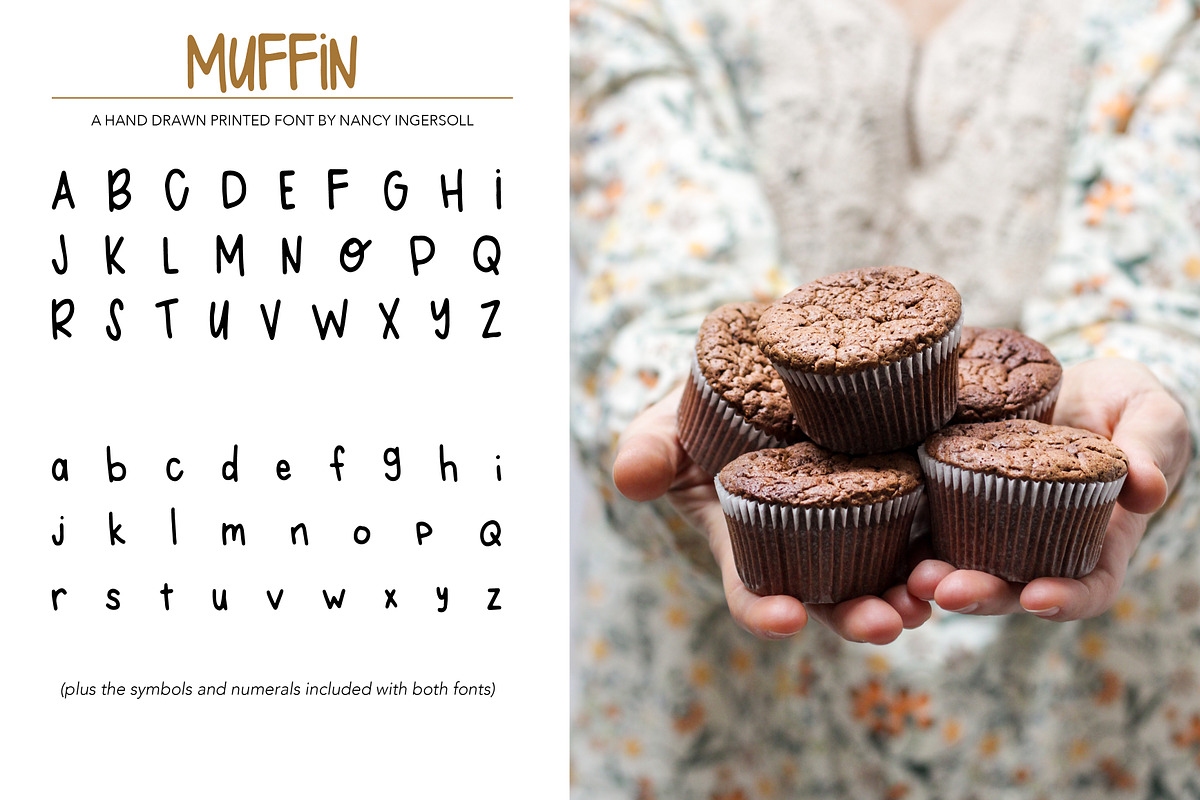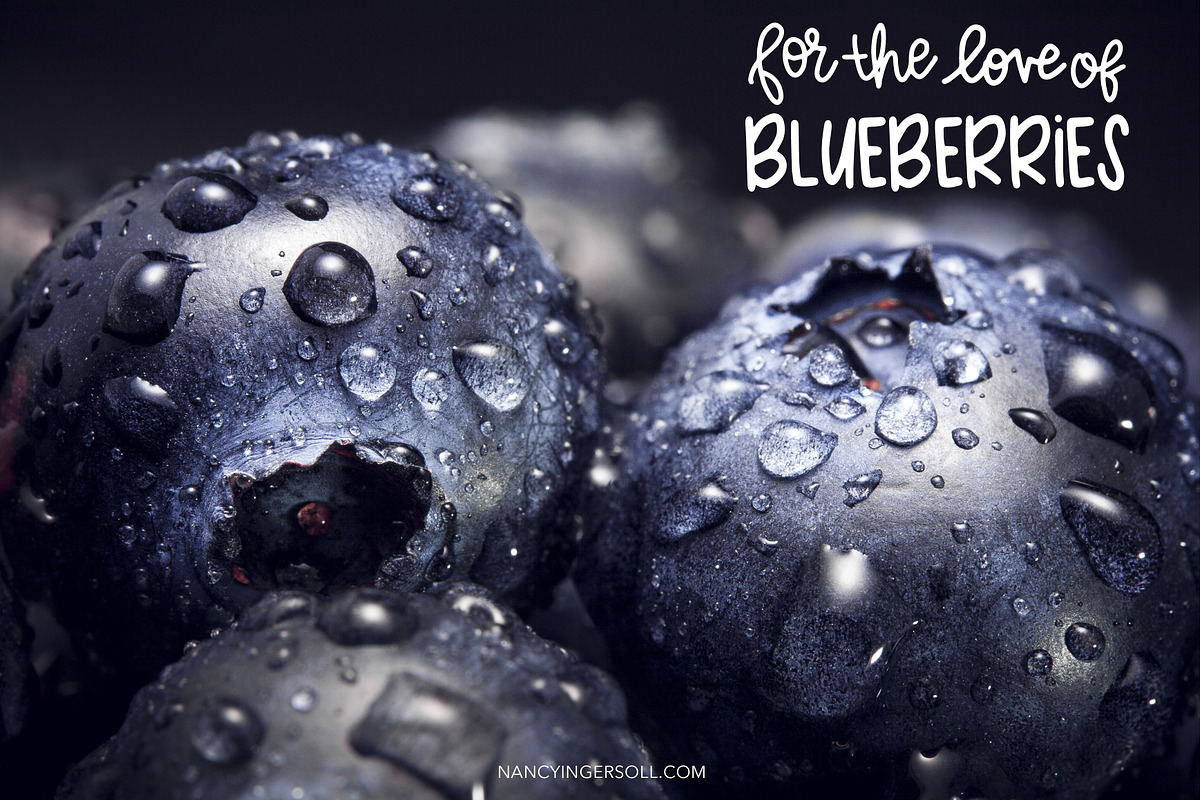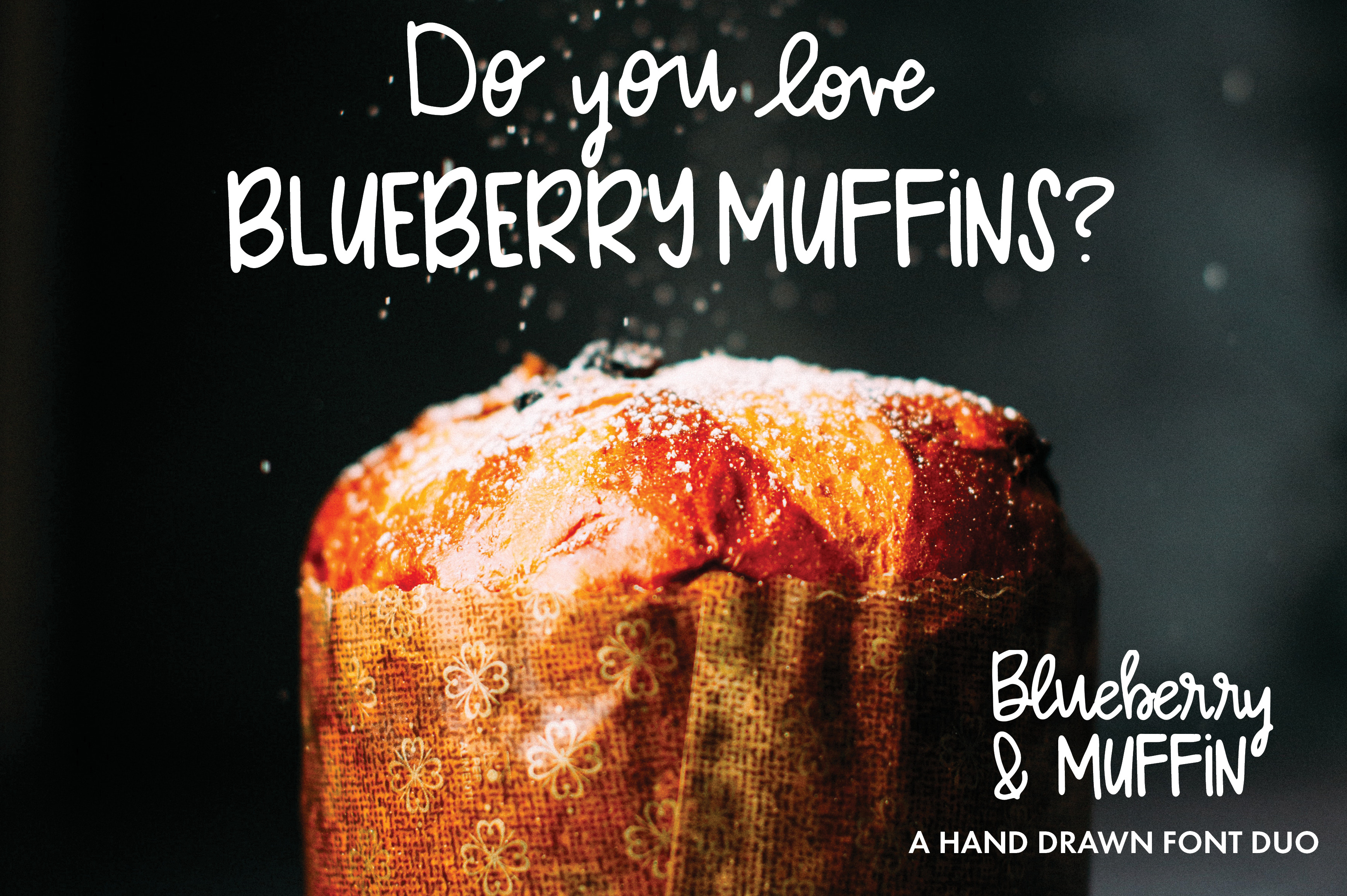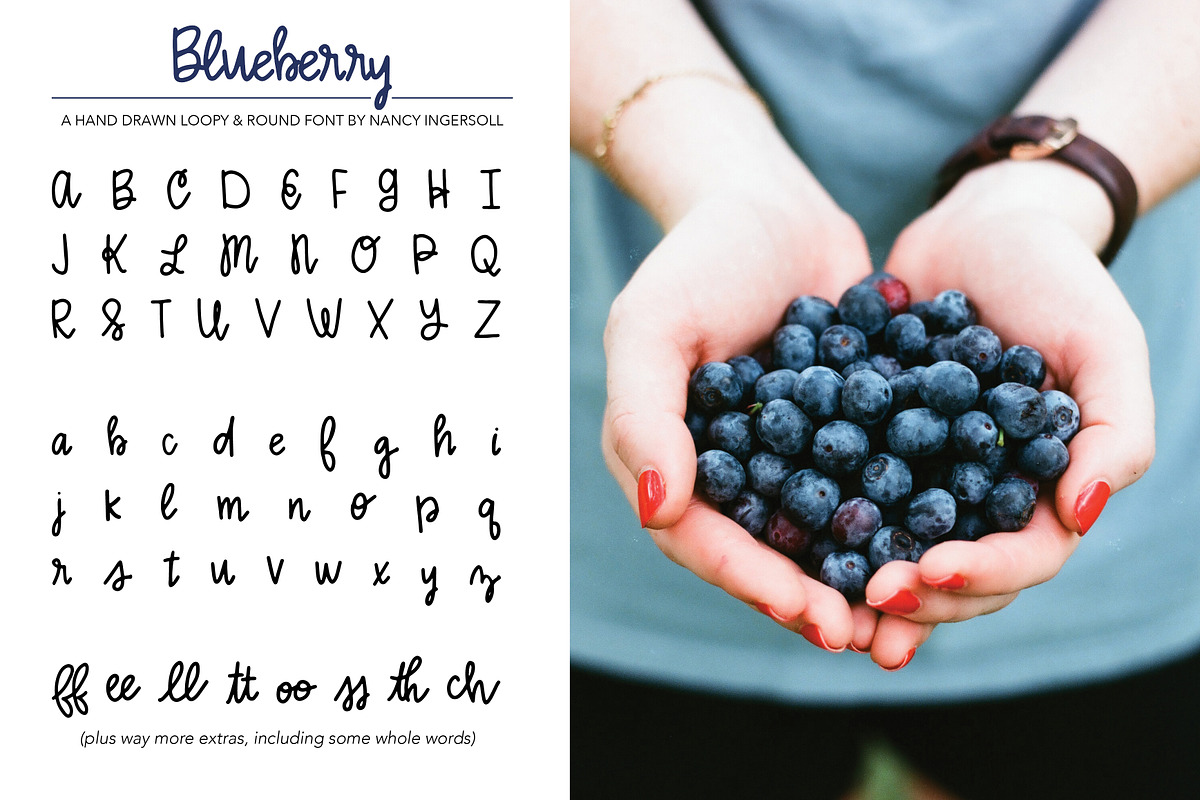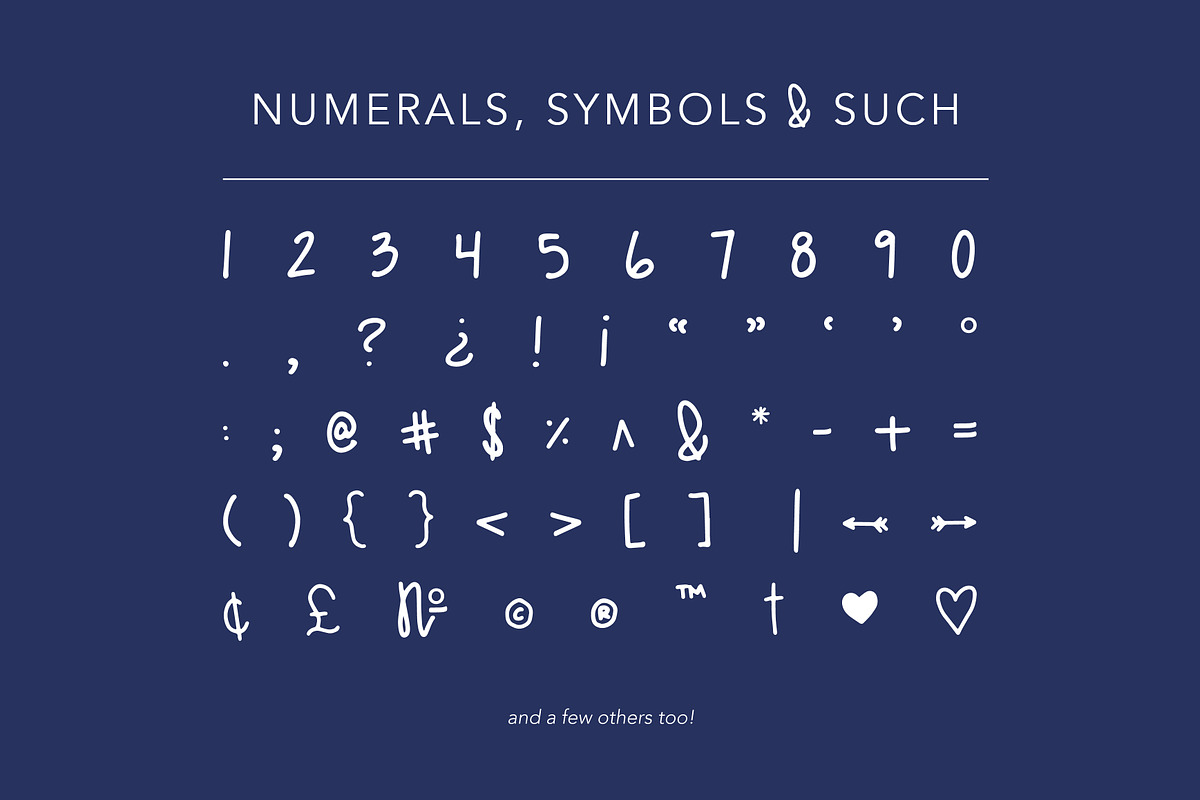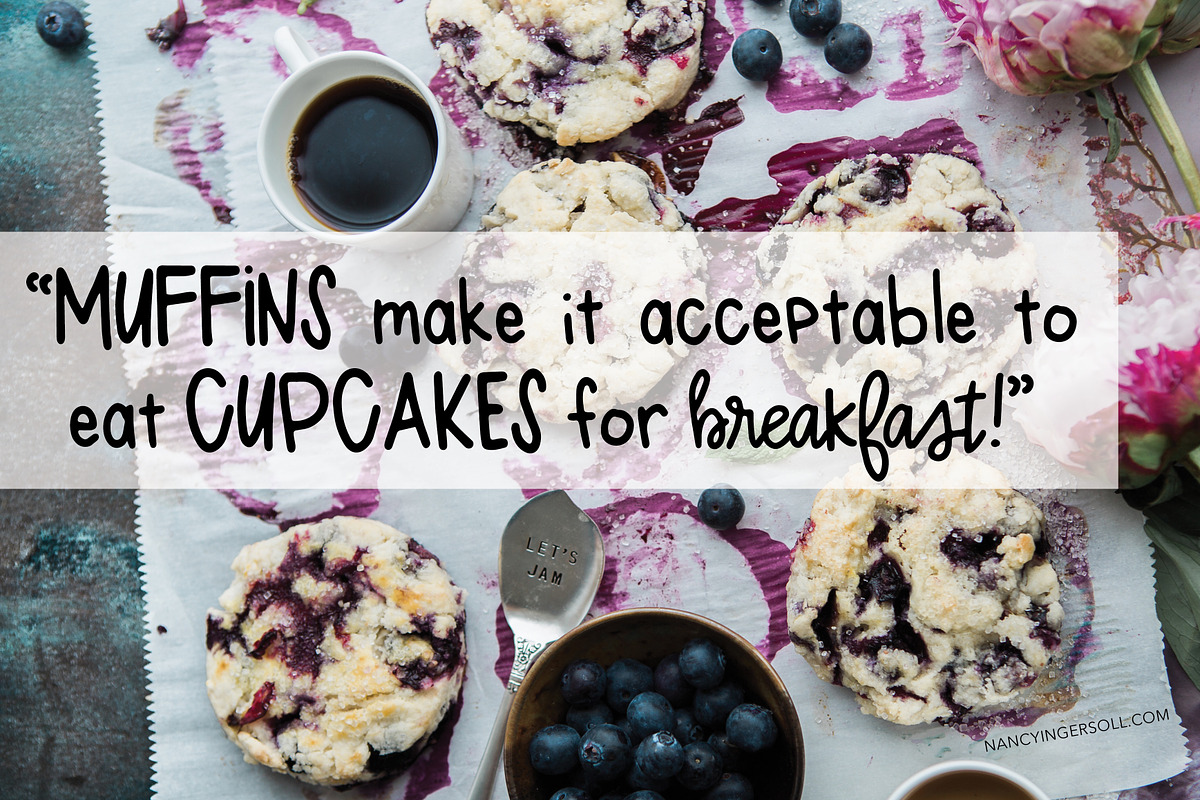
Blueberry Muffin hand drawn font duo
These fonts go together as well as blueberries and muffins! Blueberry Muffin is a hand drawn font duo of two hand lettered fonts by Nancy Ingersoll. Designed to stand on their own or pair together, these fonts are both a lot of handlettered fun.
Blueberry is full of round loops and had a bunch of extra words and letter pairs in the glyph palette. Made with the same pen, Muffin is a printed font. Both have upper and lower case letters, and share the same set of numerals.